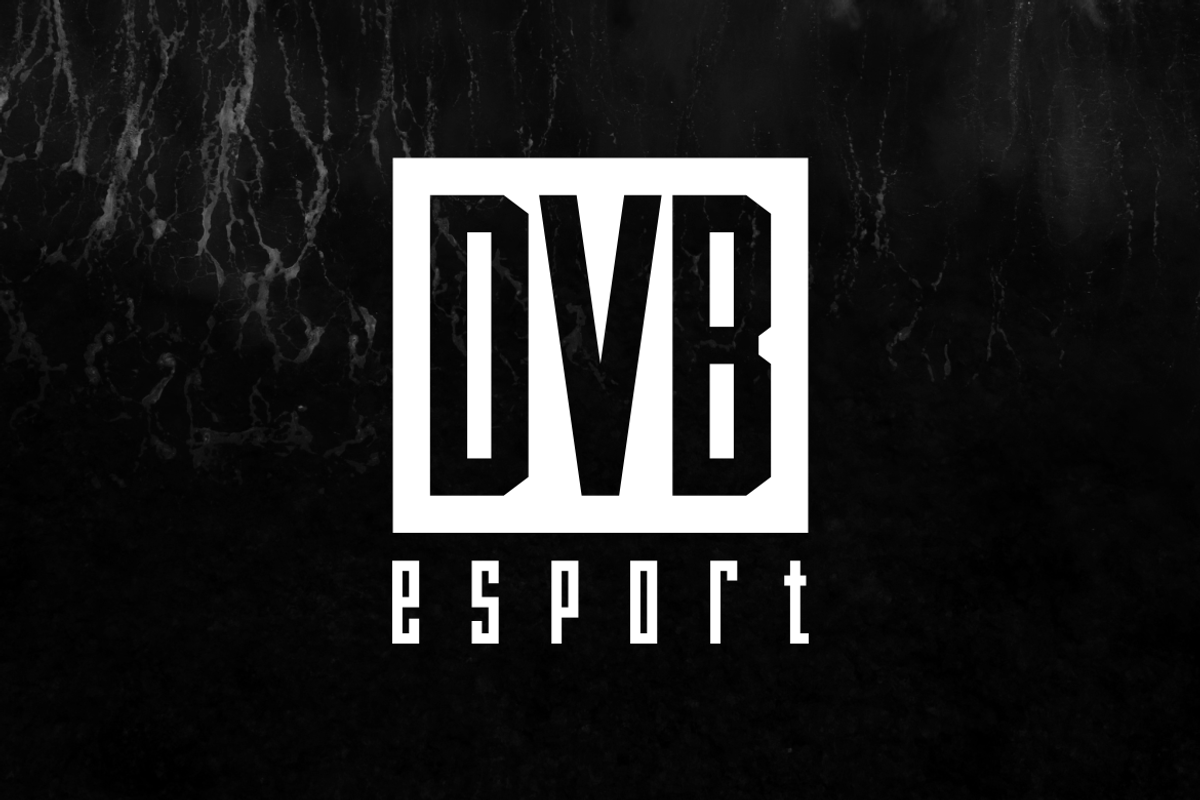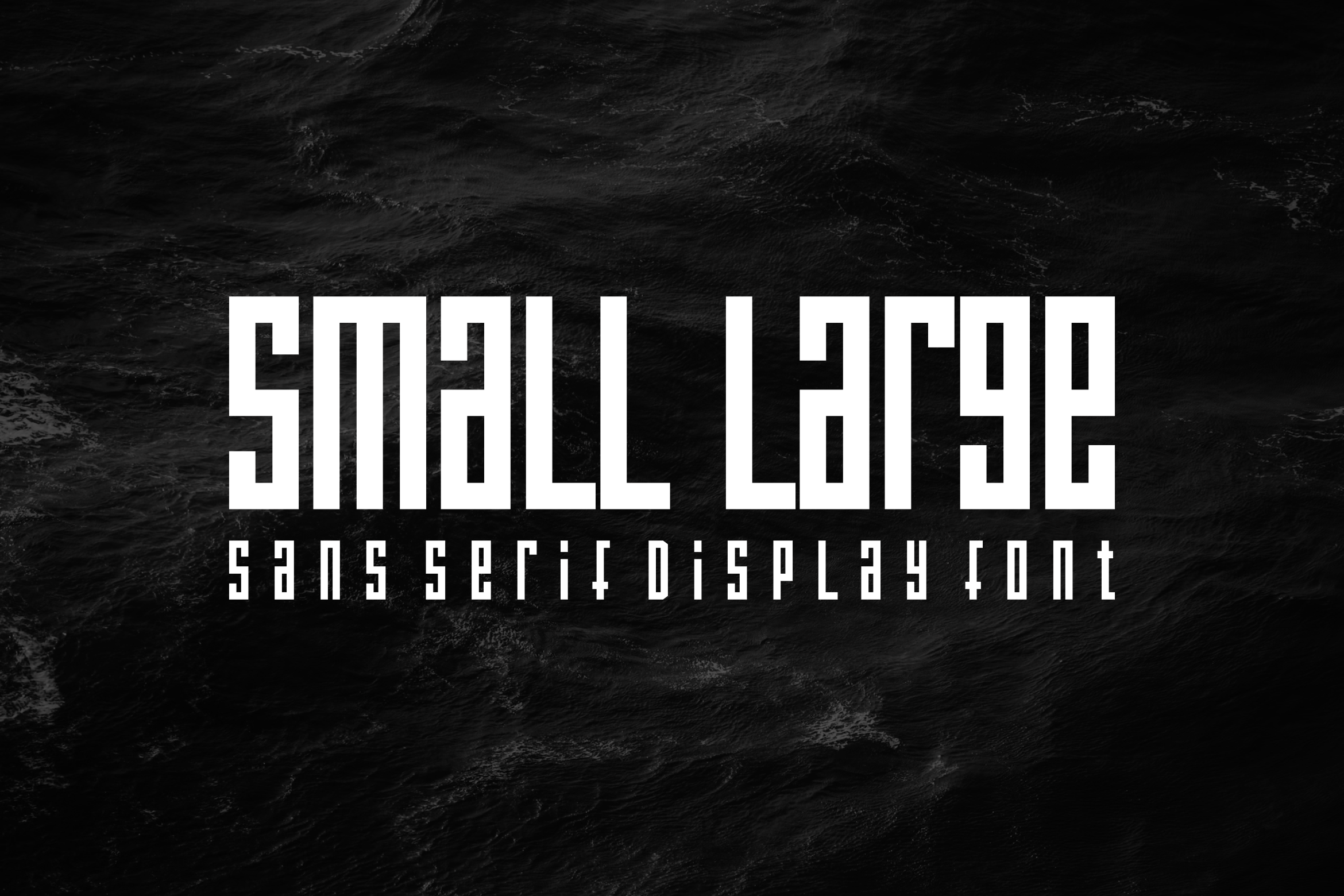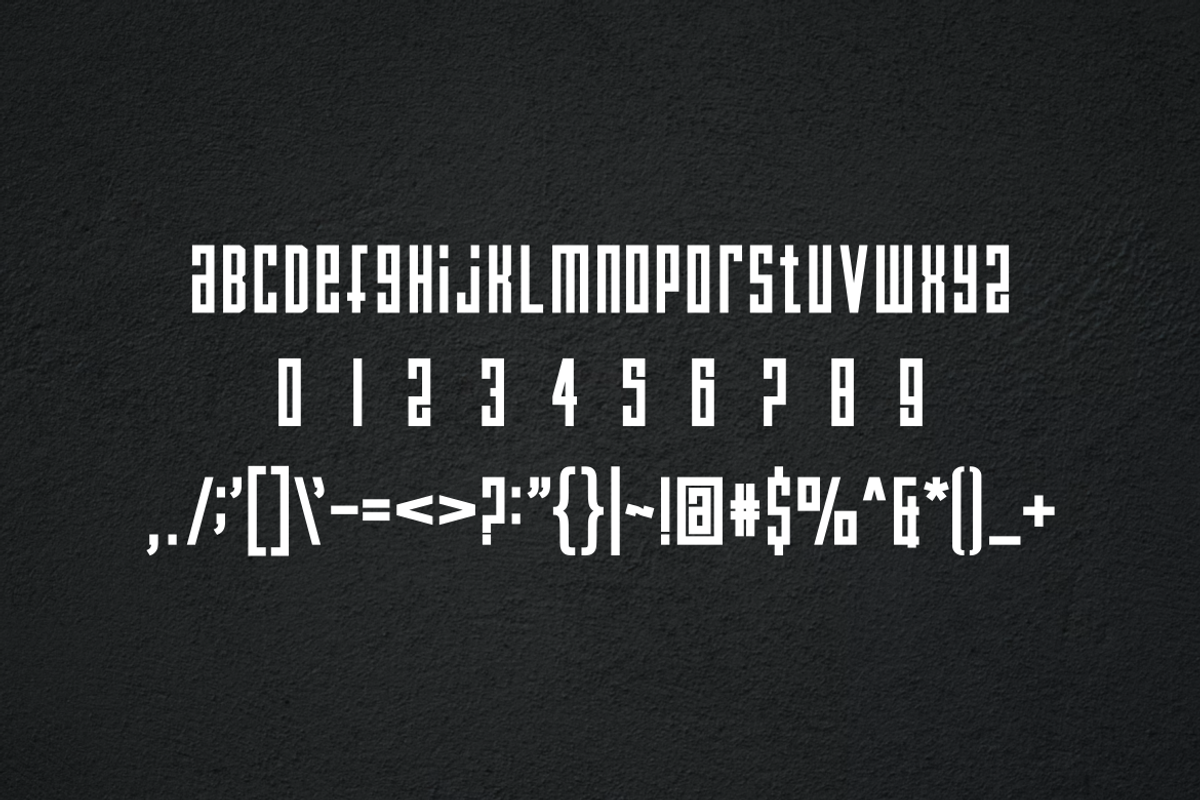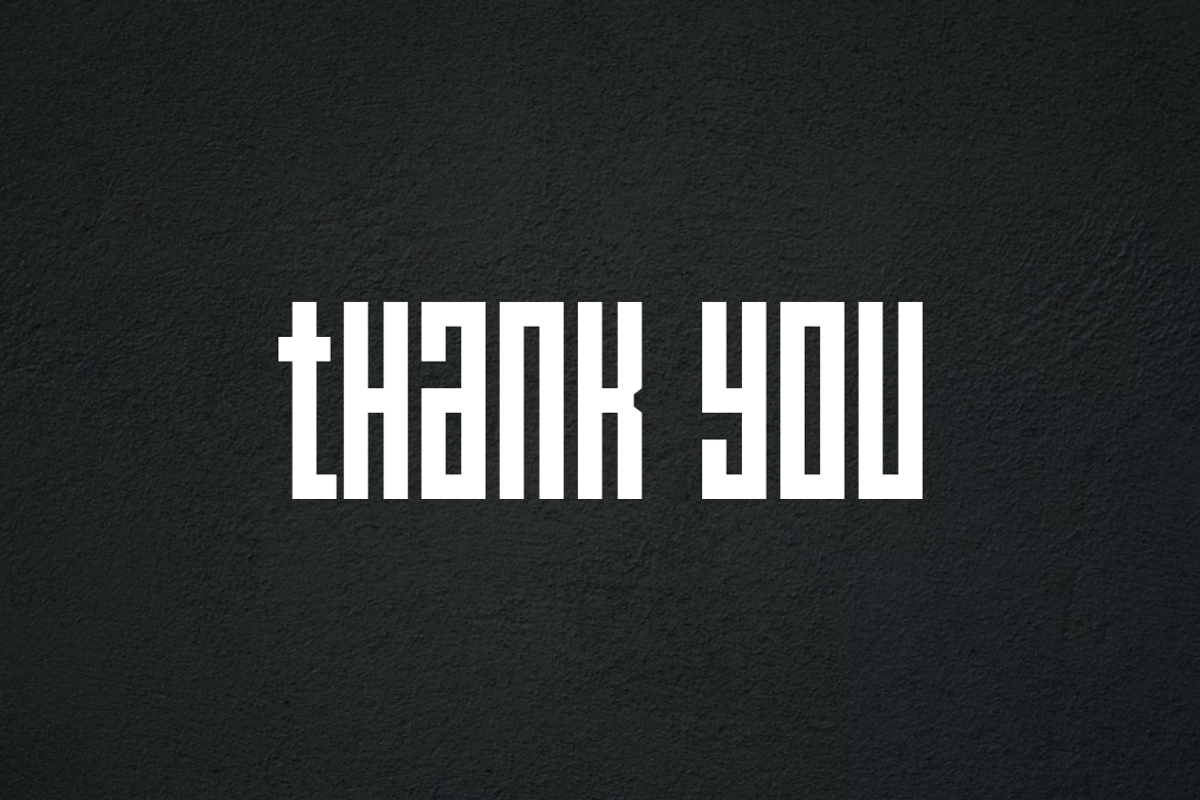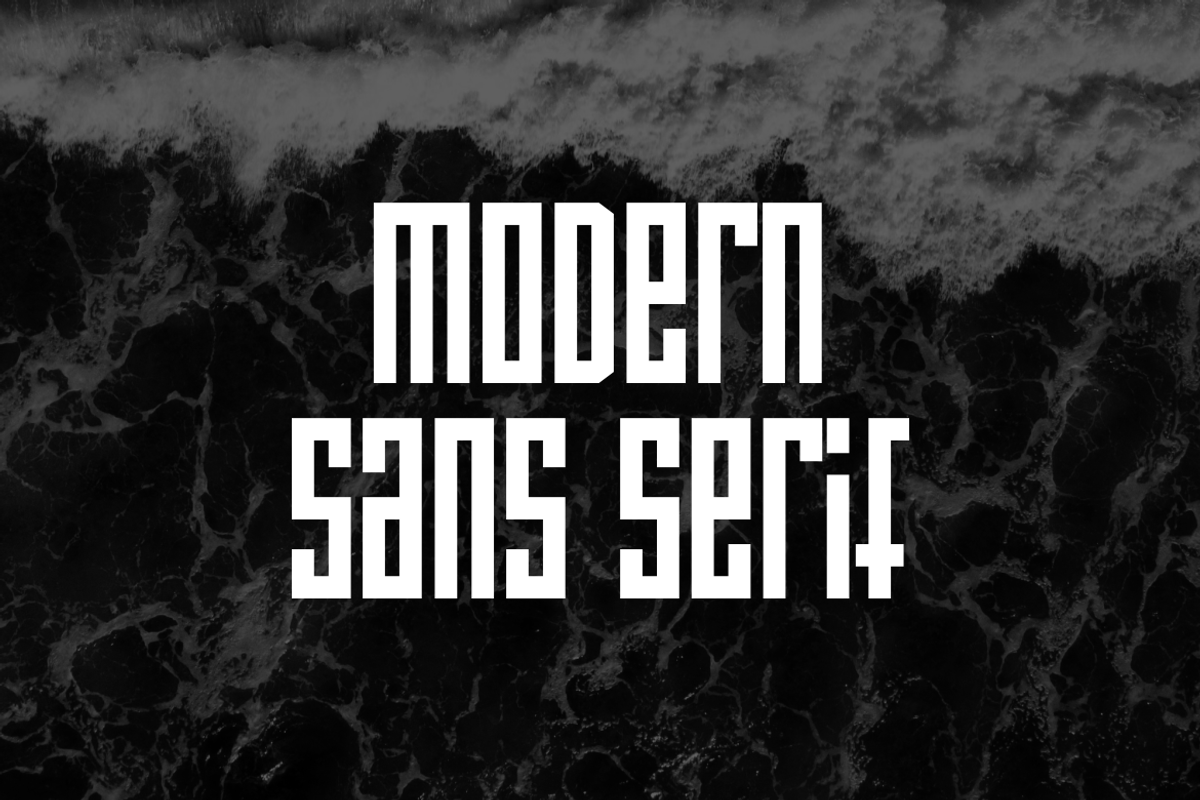
Small Large - Font
- Modern Font is a bold and authentic display font. The font is suitable for any branding project like logo, t-shirt printing,, and many more. outstanding in a wide range of contexts.